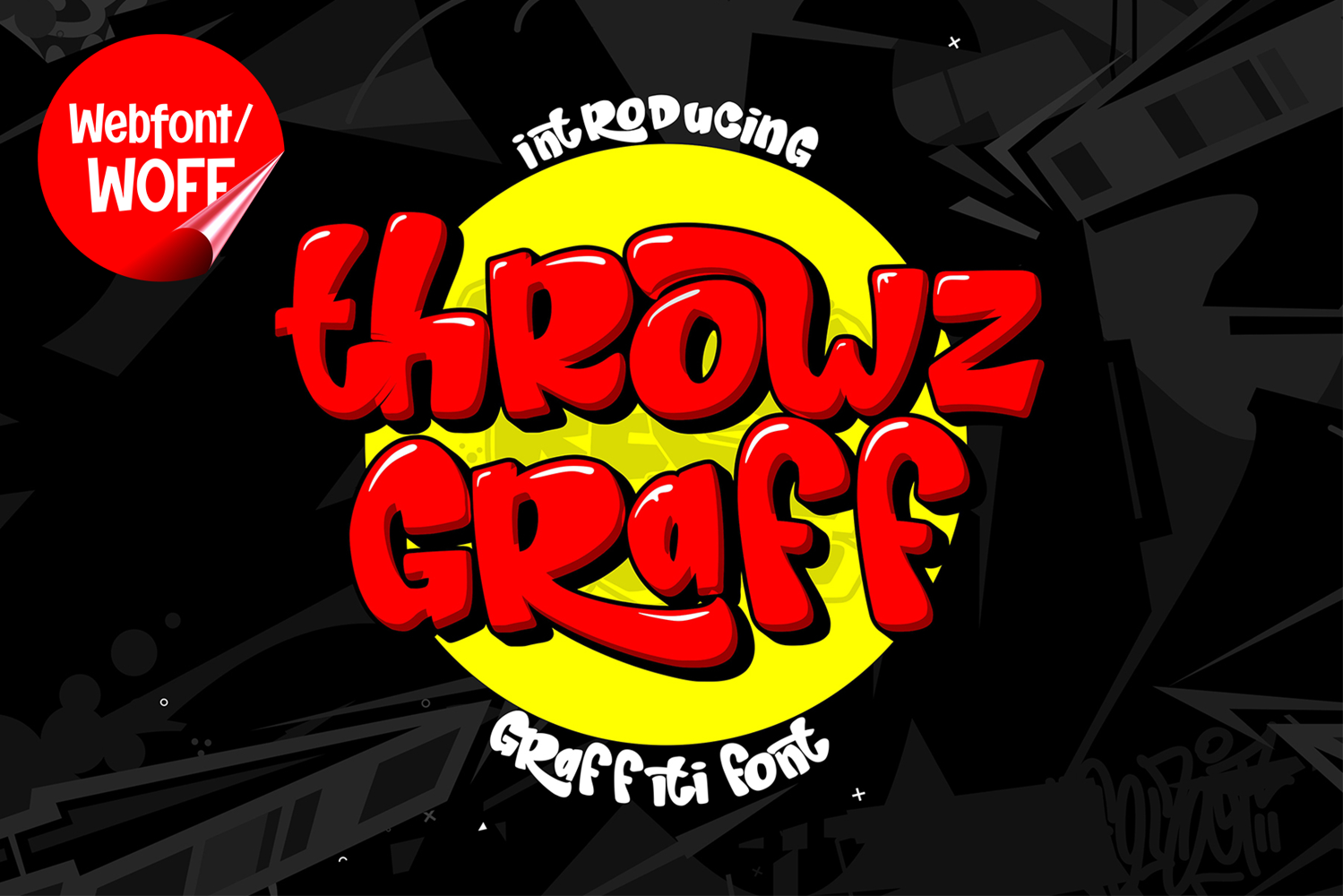
Throwz Graff | Amazing Graffiti Webfont with Alternates
Throwz Graff is an amazing graffiti webfont with alternates designed to bring authentic street-art energy and expressive urban aesthetics into modern website design. Inspired by throw-up graffiti, freestyle tagging, and underground spray-paint culture, this font features bold letterforms and dynamic stylistic alternates that create a unique and eye-catching visual identity. It is an excellent choice for projects that aim to deliver powerful graffiti visuals with strong creative flexibility and urban character.
Throwz Graff includes a complete set of uppercase characters designed with expressive graffiti aesthetics. The letterforms feature bold curves, energetic movement, and authentic street-art styling inspired by wall murals and marker tags. The addition of stylistic alternates allows designers to create more dynamic and varied typographic compositions, adding personality and originality to every project. These characteristics make it ideal for headlines, banners, hero sections, promotional graphics, and featured content where strong urban visuals are essential.
In addition to letters, the font includes numbers and punctuation, allowing flexible usage across various parts of a website. It works well for streetwear branding, gaming websites, music platforms, hip hop projects, esports graphics, and creative portfolios. Each character maintains a consistent graffiti style while the alternates provide additional design possibilities for more customized visual arrangements.
With multilingual support, Throwz Graff includes a wide range of accented characters, making it suitable for international websites and global audiences. This ensures content remains clear and visually consistent across different languages while preserving the expressive and energetic graffiti aesthetic.
The amazing graffiti style of Throwz Graff makes it especially suitable for urban-themed websites, entertainment campaigns, youth-oriented branding, and creative digital projects. Its energetic structure and alternate character options create a powerful street-art atmosphere that helps websites stand out in visually competitive environments. The graffiti-inspired forms add movement, intensity, and authentic underground character while maintaining versatility for creative layouts.
Despite its decorative and highly expressive appearance, Throwz Graff is designed with readability in mind. The spacing and proportions are carefully balanced to ensure clarity, particularly in display sizes. This allows designers to use the font effectively for impactful headings and short content without sacrificing usability.
Throwz Graff is a webfont that combines authentic graffiti aesthetics with modern digital performance and creative alternate styling. Its bold forms, expressive movement, and urban character create a distinctive typographic presence that enhances website design. For projects that require a strong, edgy, and visually engaging graffiti font, Throwz Graff offers a versatile and powerful solution.